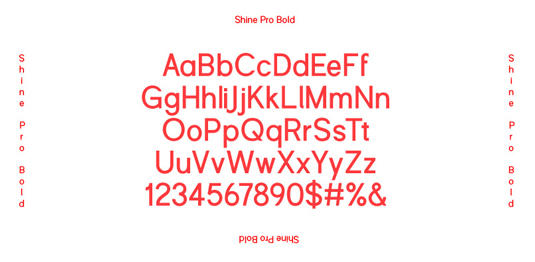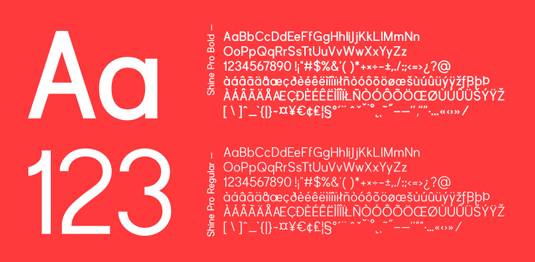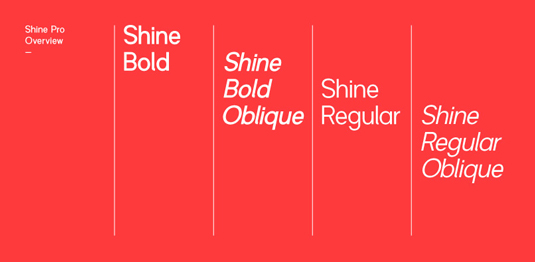
Shine Pro from Thinkdust
Available from font foundry HypeForType, today's typeface of choice, Shine Pro, is described as 'the quintessential sans serif gentleman you’ve been looking for all your life. Designed with traditional influences but with a contemporary coup-de-grace, the clean, smartly turned out, and oh-so-reliable Shine Pro is ready to become your new go-to font for all matters'.